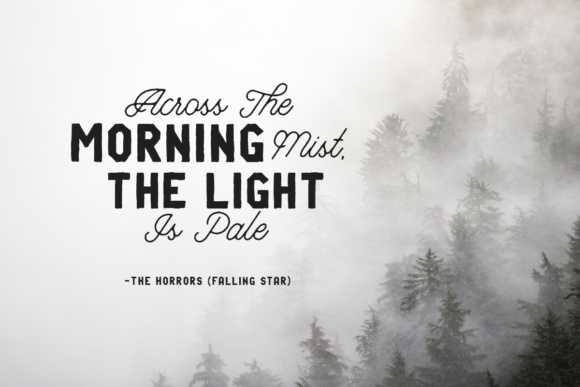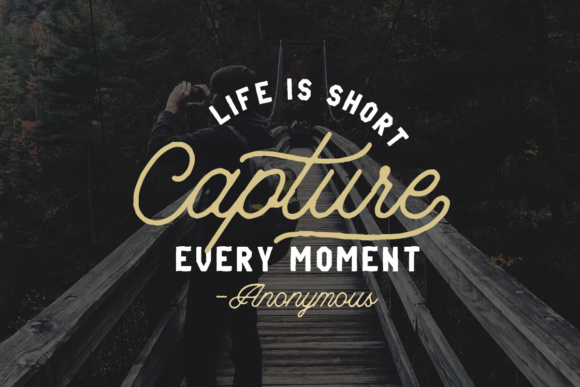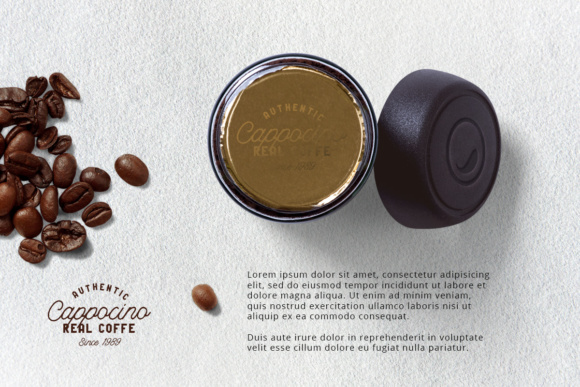
Introduction to Riverside Duo Font
A handmade typeface with monoline and sans.
This font is perfect to be used for multiple purposes such as; t-shirt designs, signatures, headlines and much more .